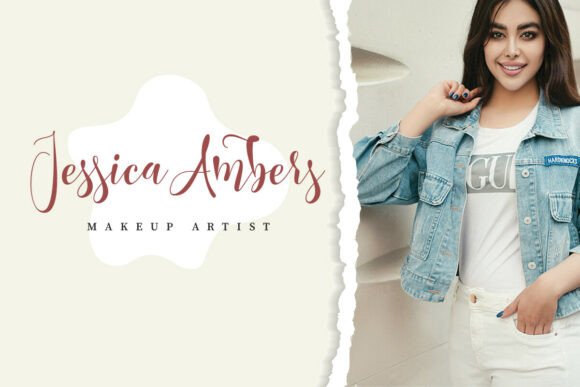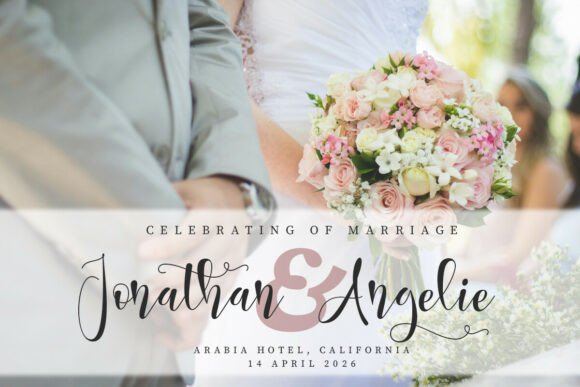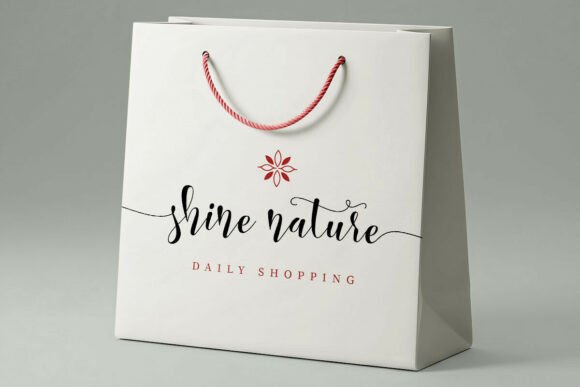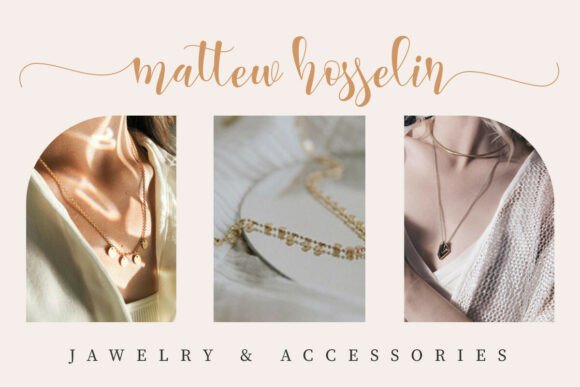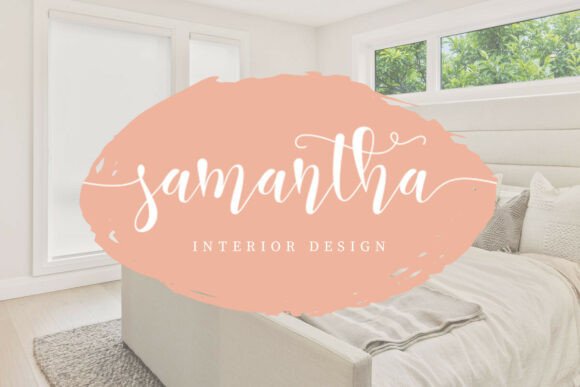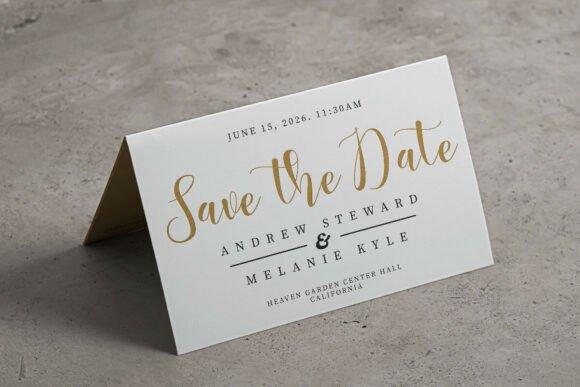
Discovering the Perfect Design Resource: Melirene Font
Imagine you’re in the midst of a creative project, pouring over design options for a luxury brand’s new packaging. You want something that exudes sophistication and style, but also conveys the brand’s unique personality. As you scroll through font options, one catches your eye – the Melirene Font. Its elegant curves and flowing lines seem to transport you to a world of high-end design, where every detail matters.
With its impeccable balance of decorative flair and readability, the Melirene Font has become a valuable resource for designers seeking to create work that stands out from the crowd. Whether you’re working on a high-end branding project or exclusive promotional materials, this font’s versatility and sophistication make it the perfect choice. But what sets it apart from other design resources, and why should you consider adding it to your toolkit?
Key Features of Melirene Font
- High-quality design resource ideal for creative projects, offering a unique and elegant aesthetic.
- Features a clean and sophisticated design, perfect for use in logos, branding, and other visual identity projects.
Honest Review: Melirene Font
As a designer, I’m always on the lookout for high-quality fonts to enhance my creative projects. Recently, I stumbled upon the Melirene Font, and I must say, it’s been a game-changer for me.
- Unique and elegant design
Overall, I’m thoroughly impressed with the Melirene Font. Its high-quality design, versatility, and accessibility make it a valuable resource for any designer. Whether you’re working on a creative project or simply need a reliable font, the Melirene Font is definitely worth checking out.
Tips for Getting the Most Out of Melirene Font
Use the Melirene Font in conjunction with a transparent background to create a clean and modern design. Experiment with different font sizes and styles to add visual interest to your design. You can also use the Melirene Font in combination with other design elements to create a cohesive look.
The Melirene Font is a versatile design resource that can be used for a variety of creative projects, including logos, business cards, and social media graphics. Its high-quality design makes it an ideal choice for professional designers and small business owners alike.